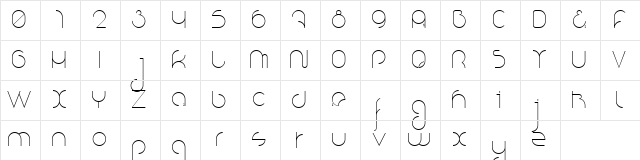
Nioubes Light is a composed and adaptable typeface that performs quietly and consistently across a wide range of design contexts. Its slender proportions lend an understated elegance to any composition.